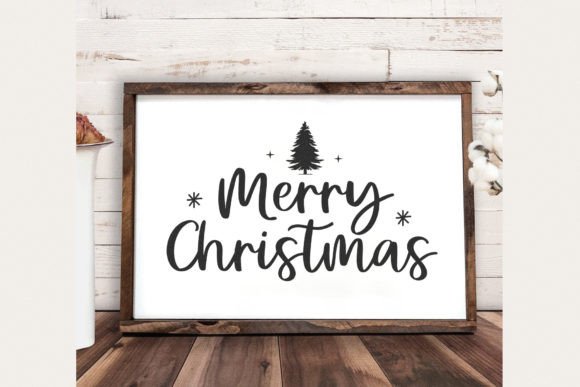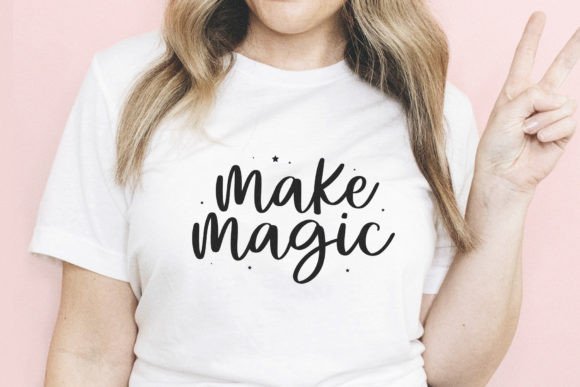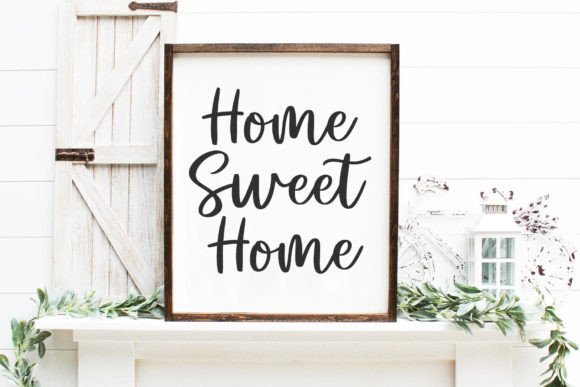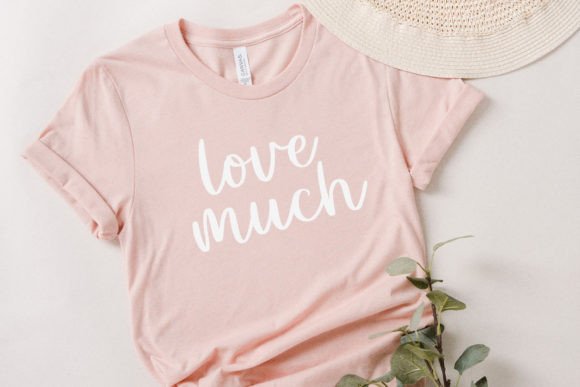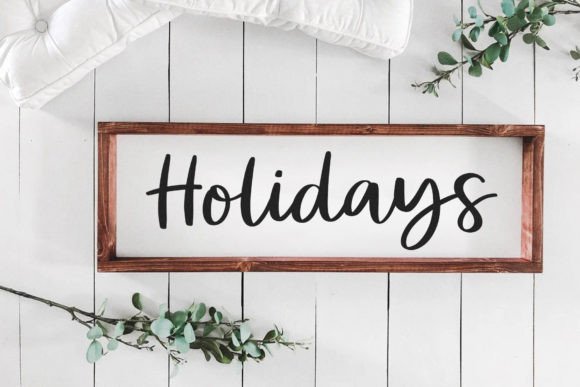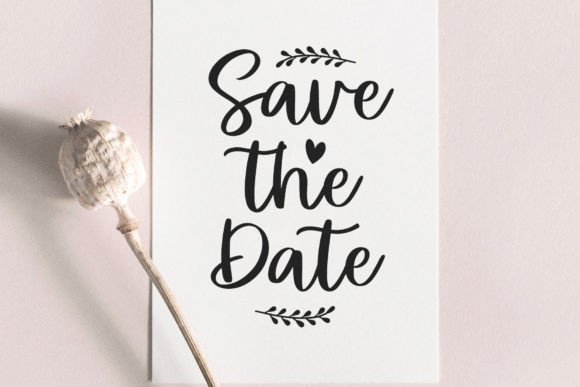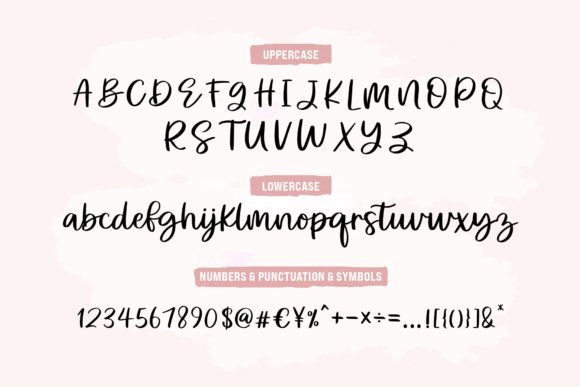
Love Always Font
Love Always Font: Fresh and Modern Script for Stylish Designs
“Love Always” is a graceful script font that brings a fresh, modern, and stylish touch to your designs. Its beautiful, well-balanced characters make it perfect for various creative projects.
Key Features of Love Always Font
• Modern Style: Love Always combines freshness with elegance.
• Versatile Use: Suitable for many projects, from logo designs to packaging.
• Flowing Script: Creates a timeless and captivating look.
Love Always’ stylish appearance is ideal for creating memorable brand identities and logos that convey sophistication.
Quotes and Posters
Use Love Always to design eye-catching posters and inspirational quotes that stand out with their modern appeal.
Packaging and Product Design
The font’s elegant look makes it perfect for creating stylish packaging designs that catch the consumer’s eye.
Love Always offers more than just beautiful letters. Here’s why it stands out:
• Enhances overall aesthetics with its flowing script style
• Conveys a sense of modernity and style effortlessly
• Adapts well to various design themes and projects
By using Love Always, you open up new design possibilities. Its modern style works well in many contexts, from greeting cards to website headers. The font’s ability to convey contemporary elegance can inspire creative ideas and help you approach projects from a fresh perspective.
Love Always in Digital Design
In the digital realm, Love Always excels in creating engaging social media graphics and web content. Its stylish look can help capture attention and increase engagement on various online platforms.
If you’re looking for a font that’s both fresh and versatile, Love Always is an excellent choice. It’s perfect for adding a modern touch to your work, especially for projects that need a stylish, contemporary feel.
Explore how Love Always can transform your designs. From branding projects to personal creations, this font brings a graceful and captivating quality to your work.